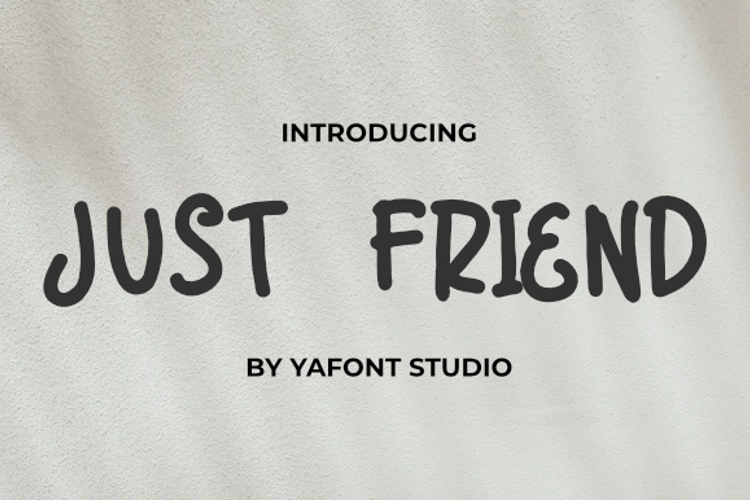
Just Friend Font
Just Friend is a simple and neat display font. It embodies playfulness and authenticity and is the perfect choice for any children activity or school project.